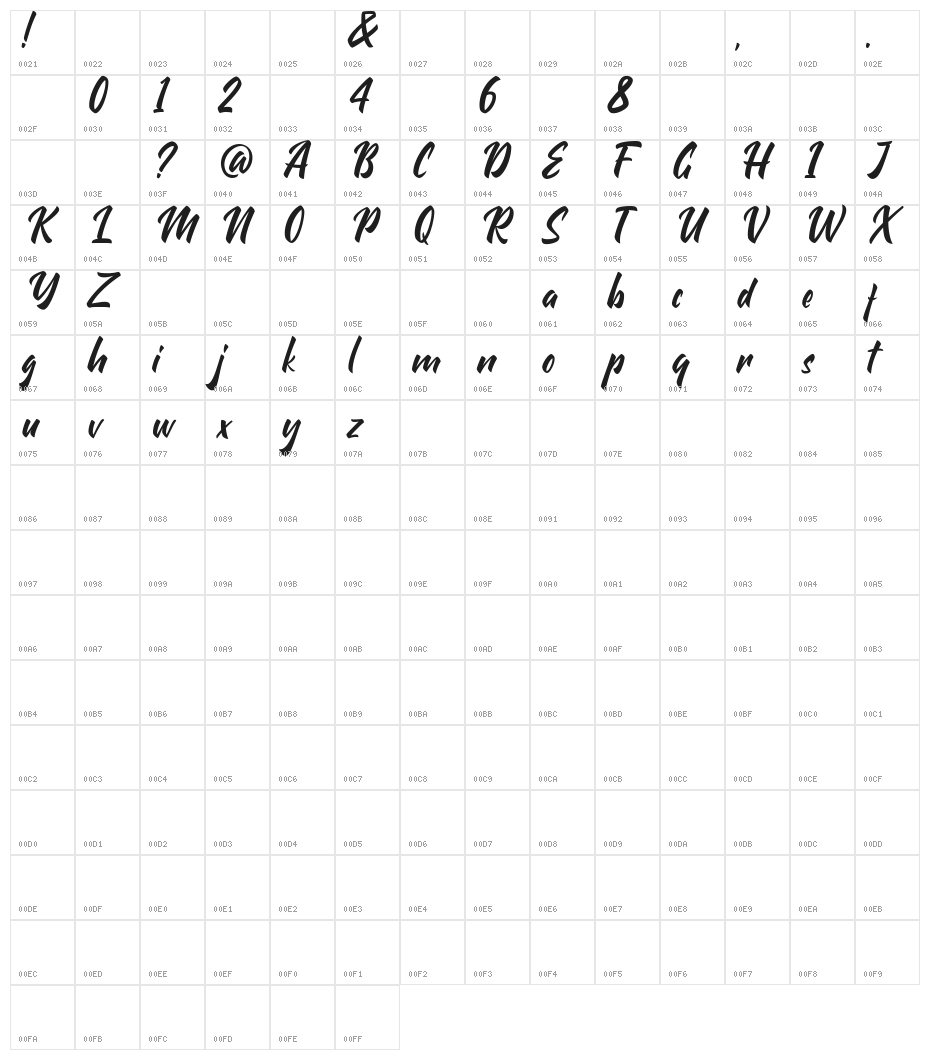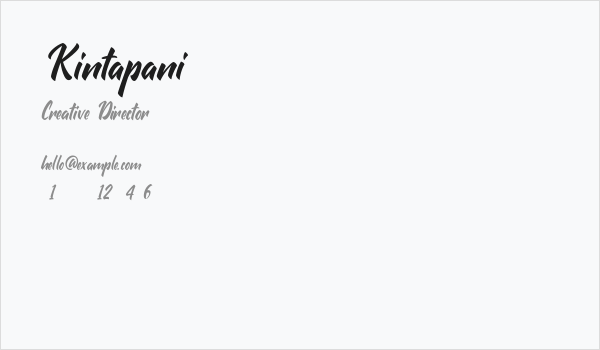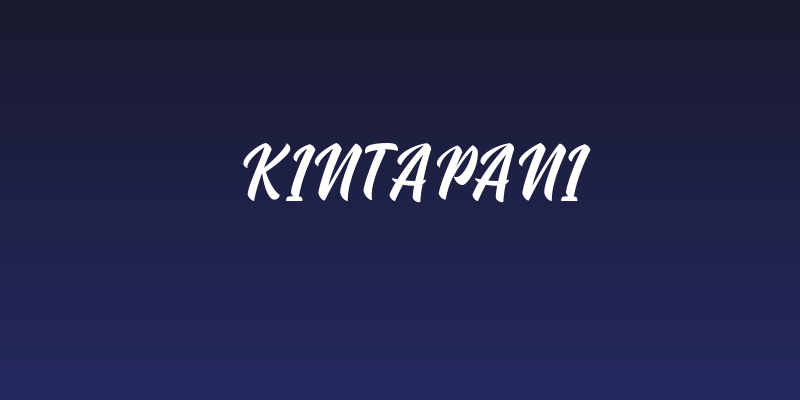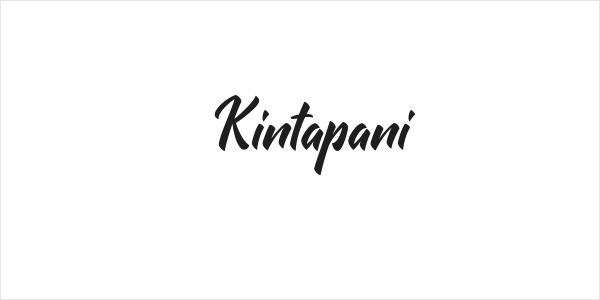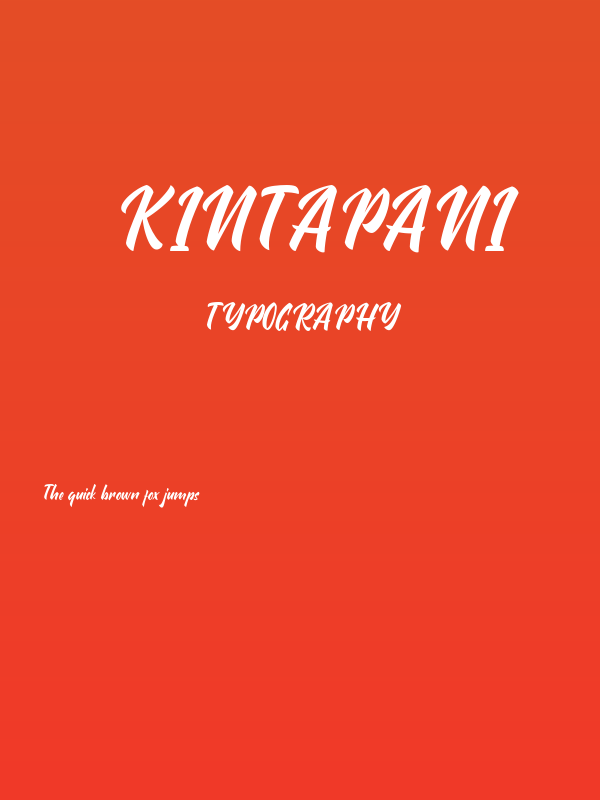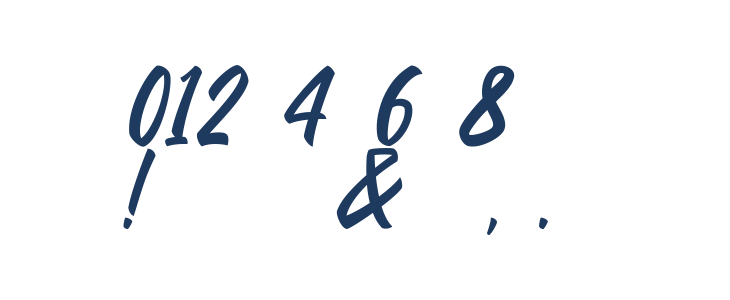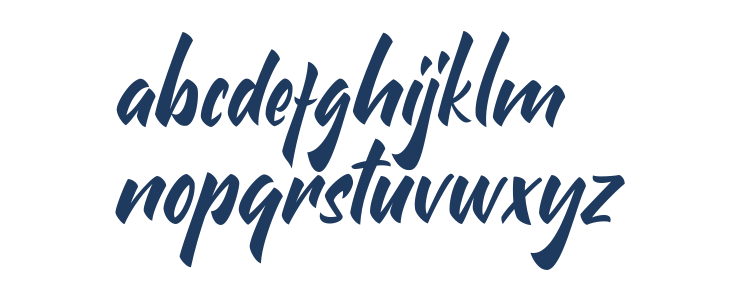
Kintapani Font
Kintapani Description
This font features a bold, dynamic script style with a strong emphasis on fluidity and movement. The characters are designed with a brush-like appearance, giving them an artistic and expressive quality. The uppercase letters are slightly more structured, while the lowercase letters exhibit a more casual and flowing form. The numerals and special characters maintain the same energetic style, ensuring consistency across all glyphs. This font's overall aesthetic is both modern and playful, making it suitable for a variety of creative applications.